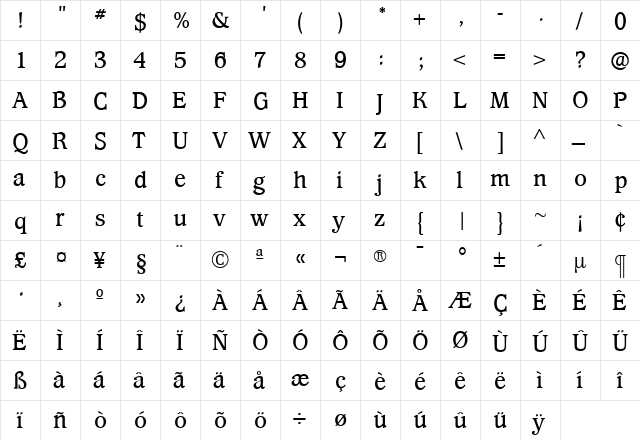
WaverlyMedium Roman
Design Context for WaverlyMedium Typeface
WaverlyMedium offers clean, dependable letterforms without strong stylistic allegiance, making it a practical choice for designers who need flexibility.